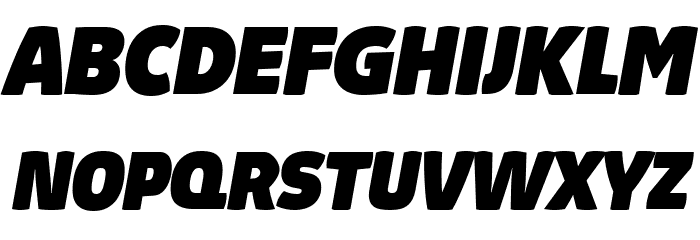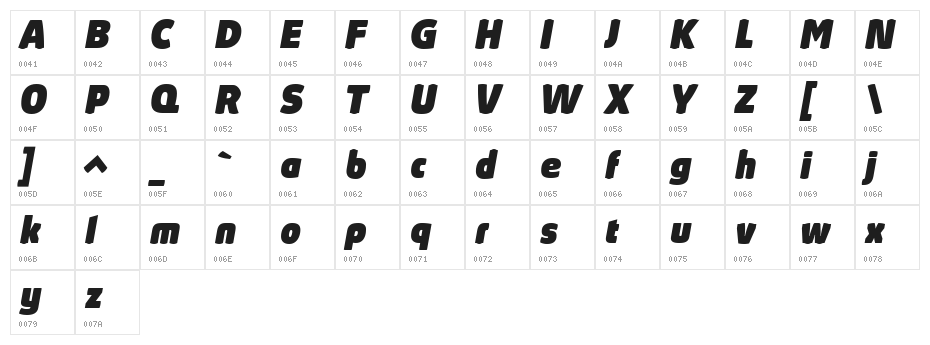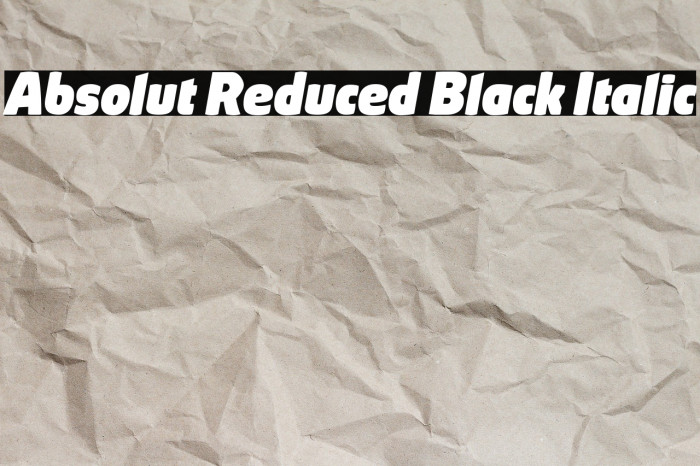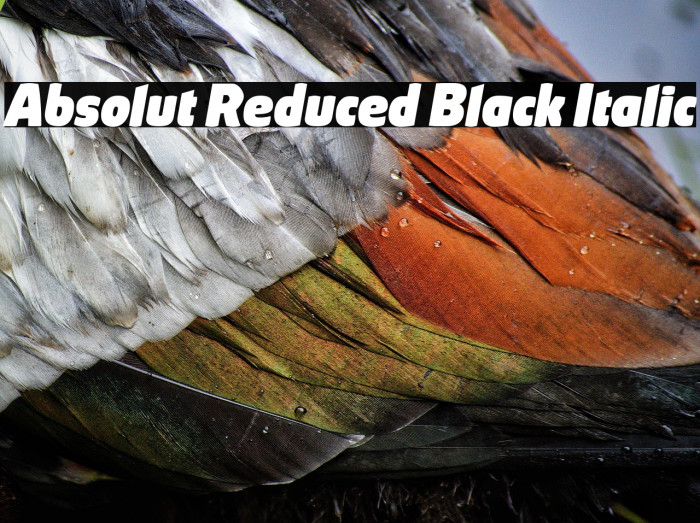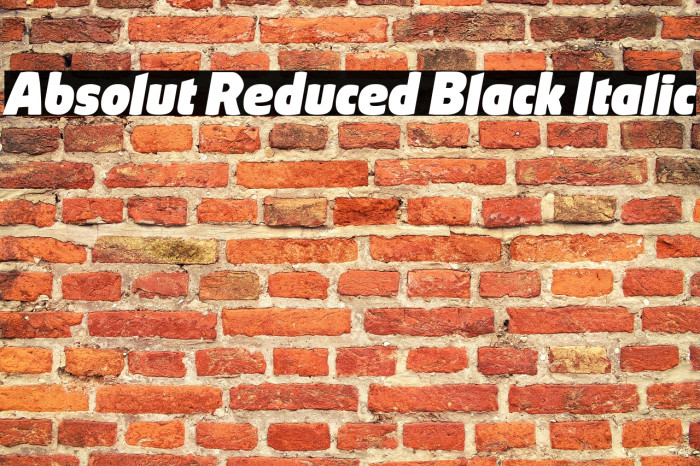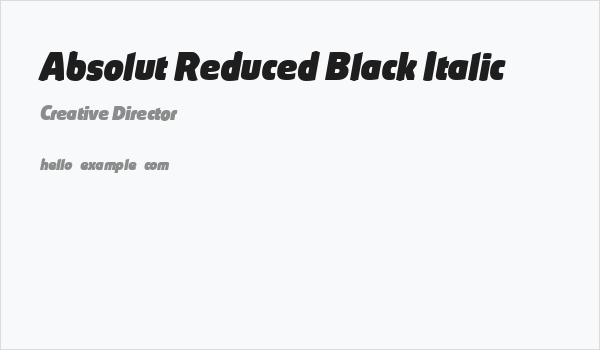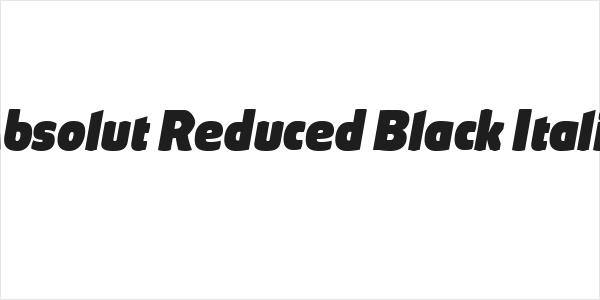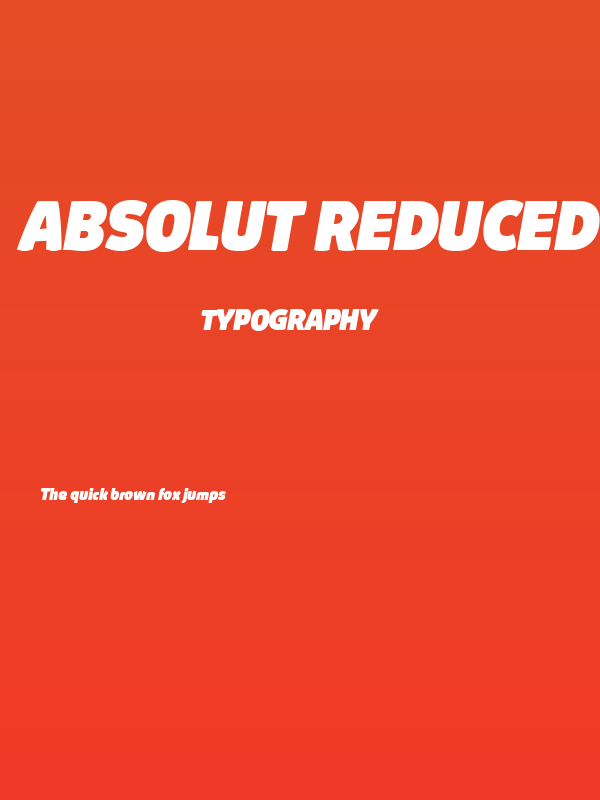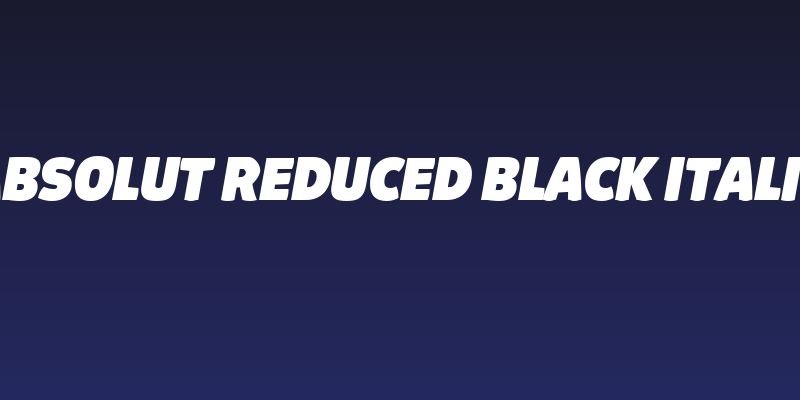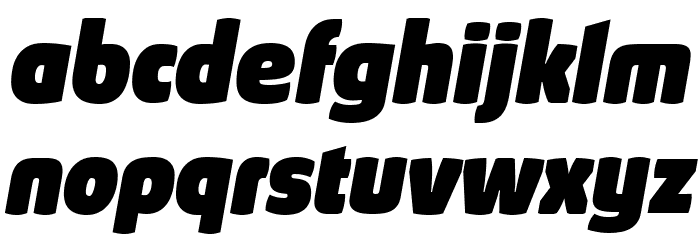
Absolut Reduced Black Italic Font
Absolut Reduced Black Italic Description
This font features a bold and dynamic style with a strong presence, characterized by its thick strokes and italicized form. The letters are slightly condensed, giving it a compact appearance while maintaining readability. The uppercase and lowercase letters are consistent in their boldness, creating a uniform look across the alphabet. The numbers and special characters follow the same design principles, ensuring a cohesive visual identity. The italic slant adds a sense of motion and energy, making it suitable for impactful headlines and attention-grabbing designs.
| Proposed Projects | Ideal for branding, advertising, posters, and any project requiring a strong visual impact. |